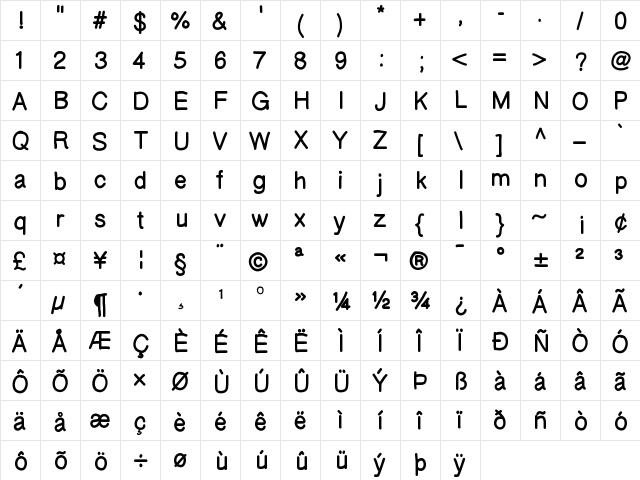
Mallow Medium
Design Context for Mallow Typeface
Mallow takes a measured approach to typography — its balanced proportions and neutral character make it a reliable workhorse for both digital and print work.
Pro Tip: Use Mallow in both headline and body roles to test its range before committing to a single application.